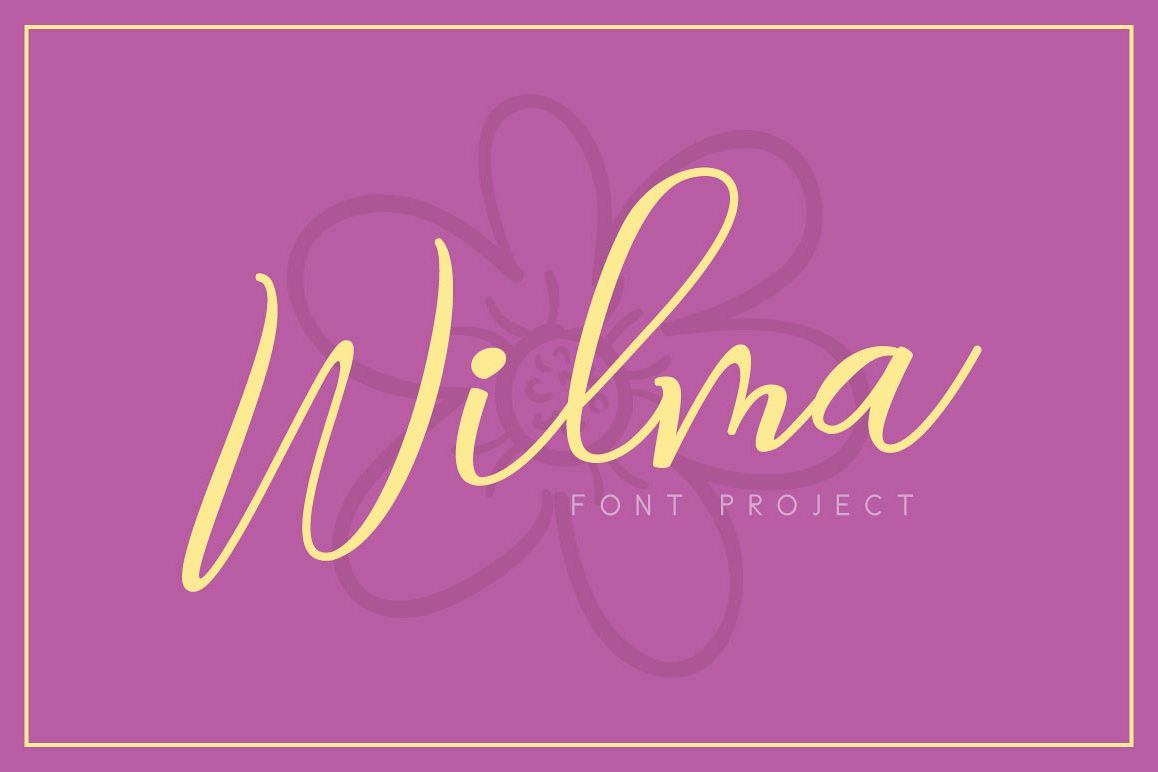
Presenting Wilma Typeface, a cute and beauty script font which is bouncy baseline and wisely designed to
create your text looks gorgeous. A trend-setter script style typeface will
craft a flawless look for many different projects such as quotes, blog header,
poster, wedding, branding, logo, fashion, apparel, letter, invitation,
stationery, etc.